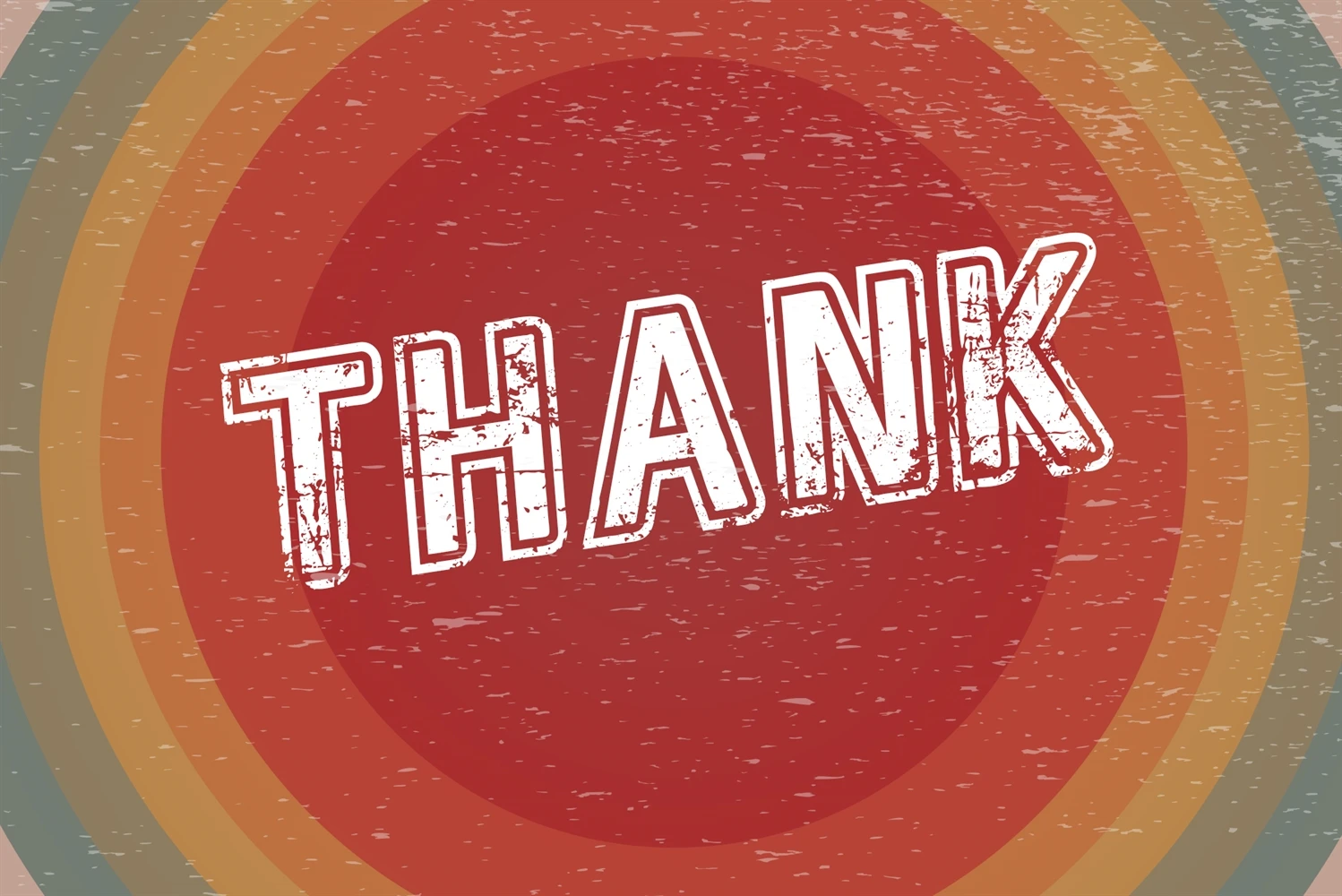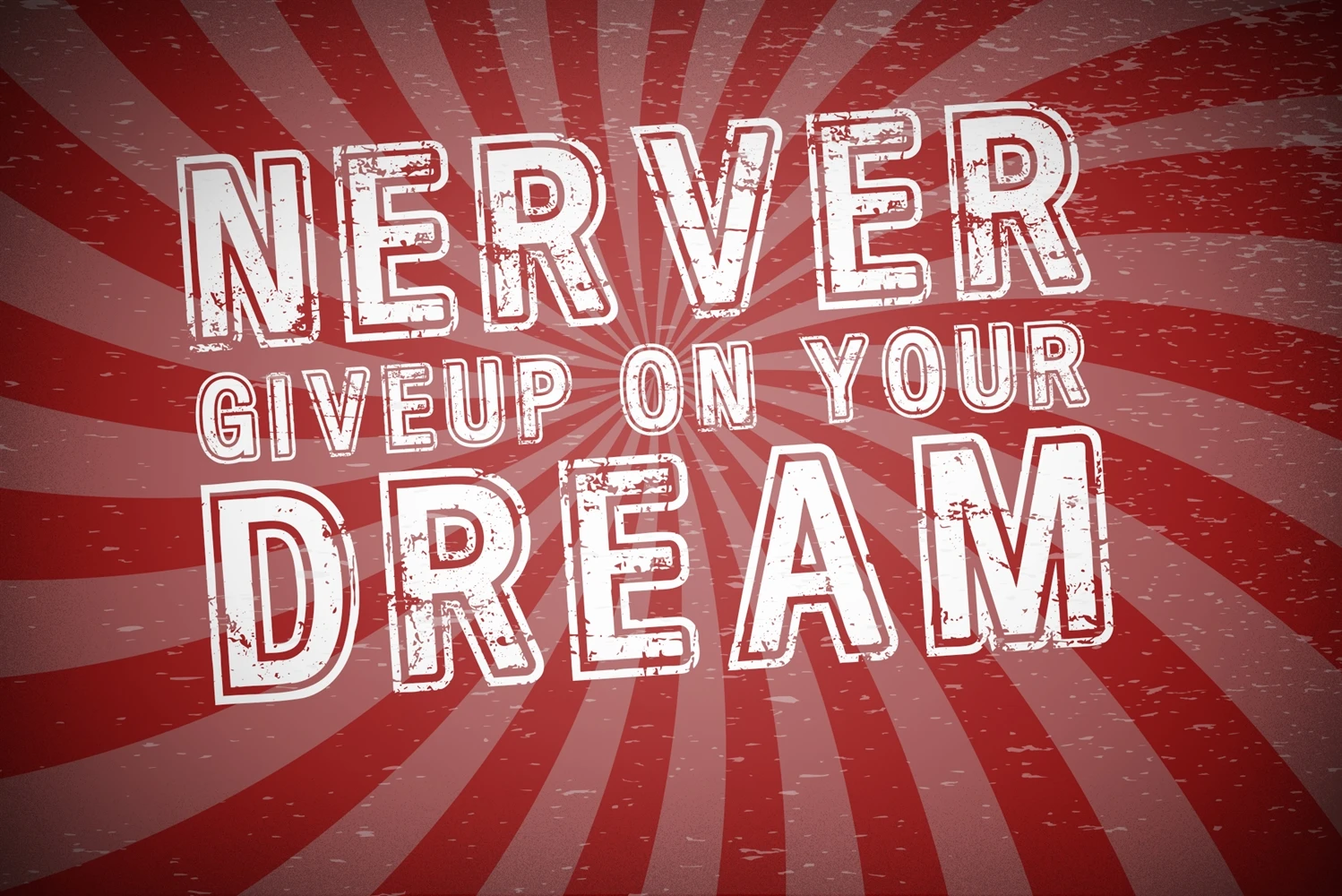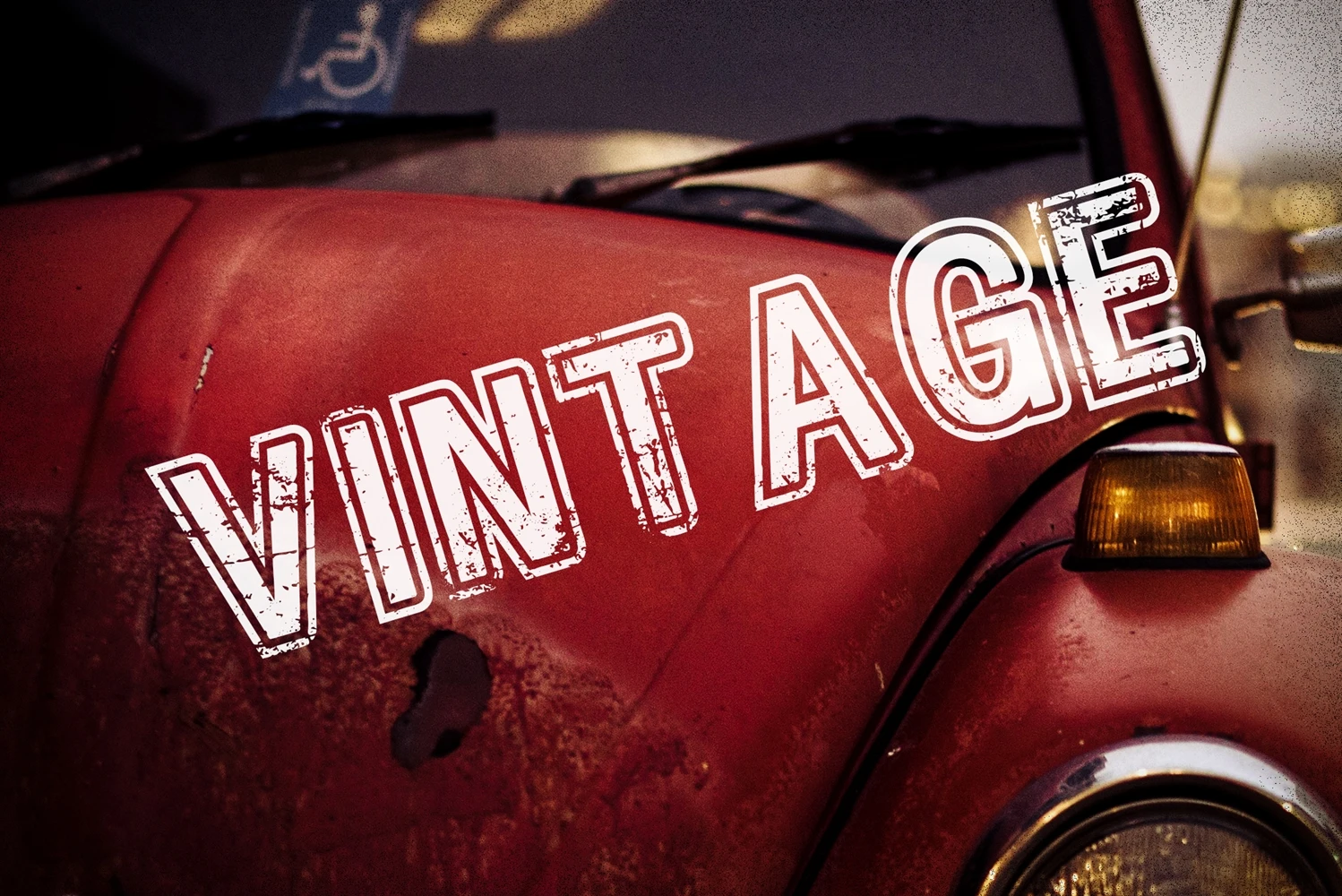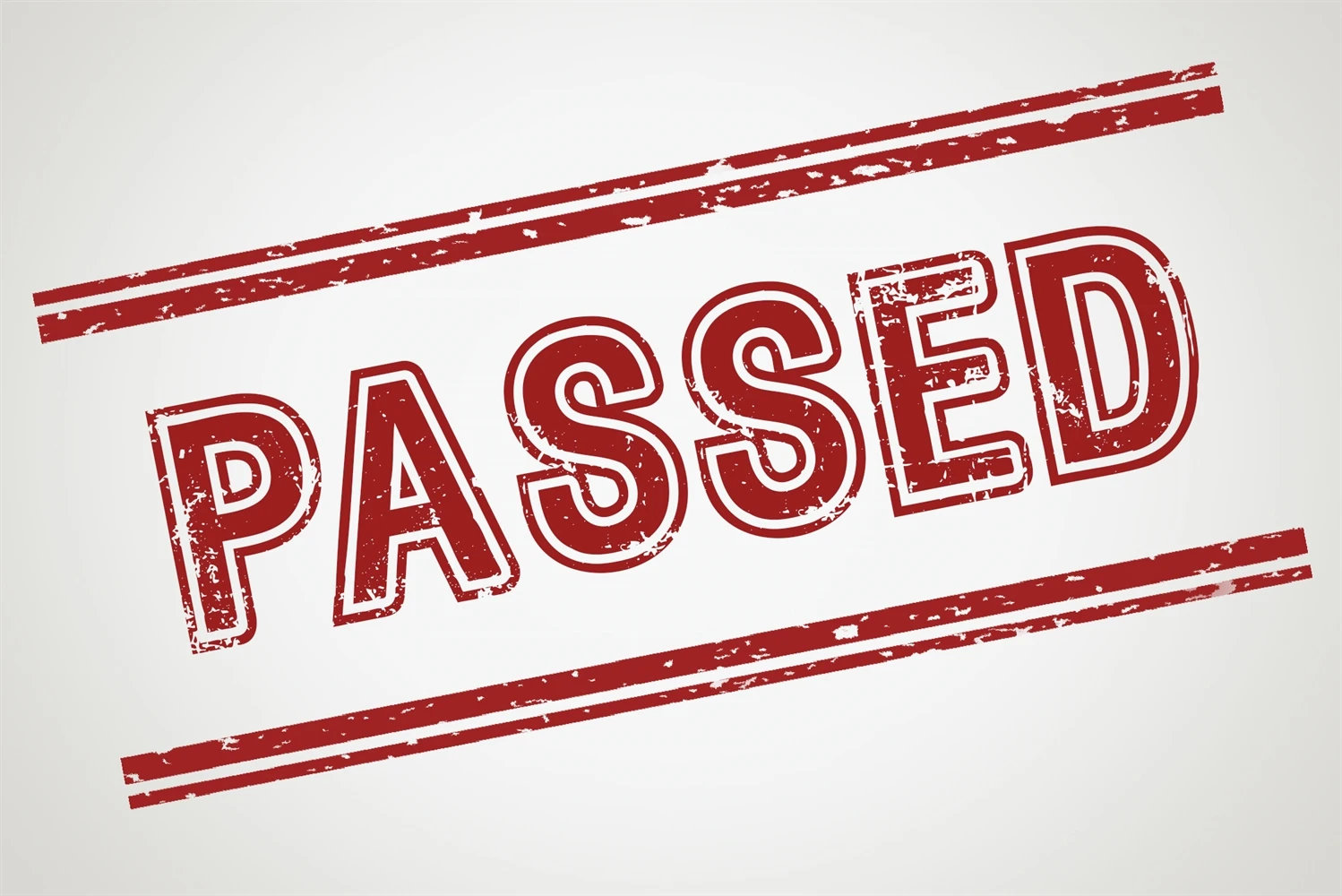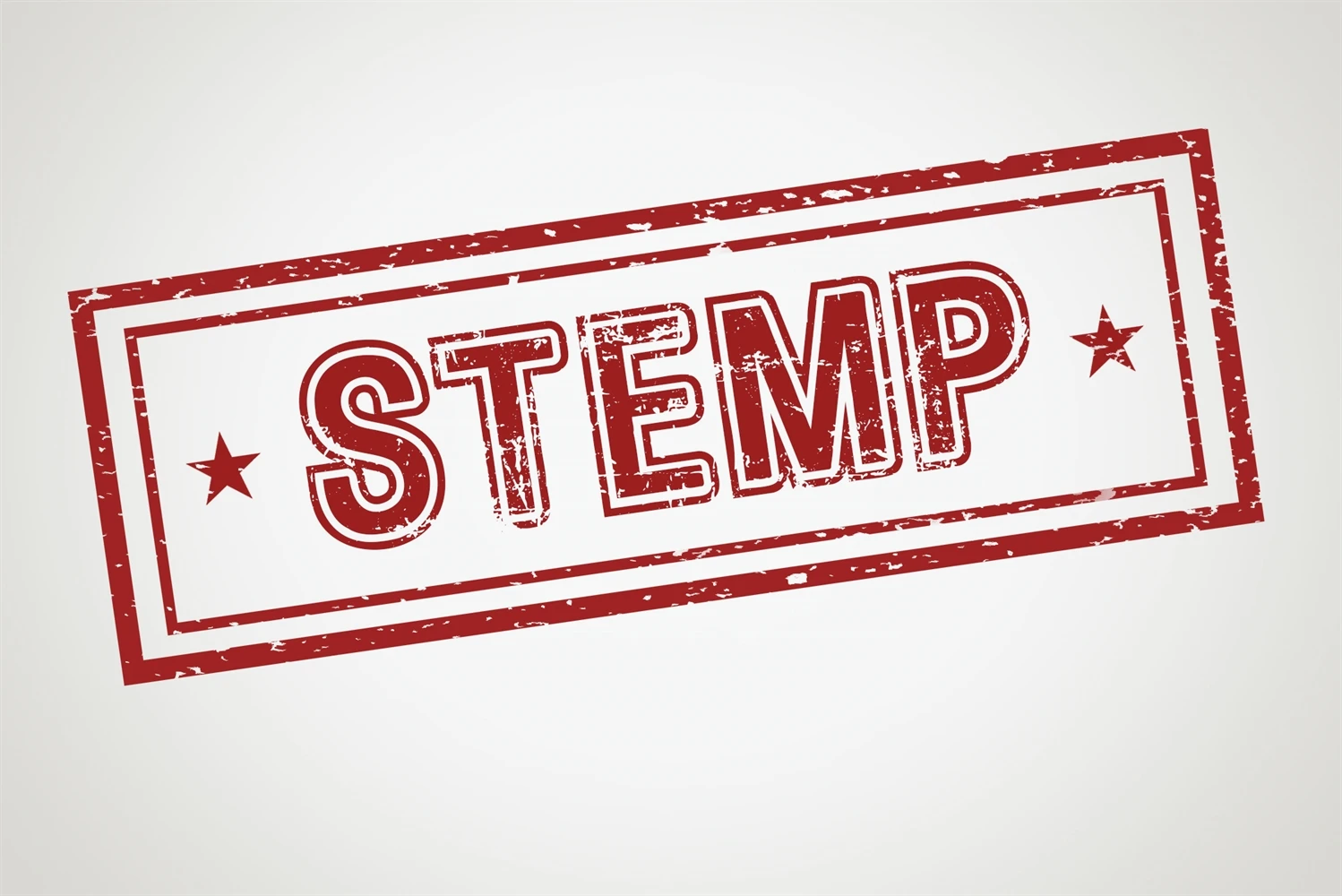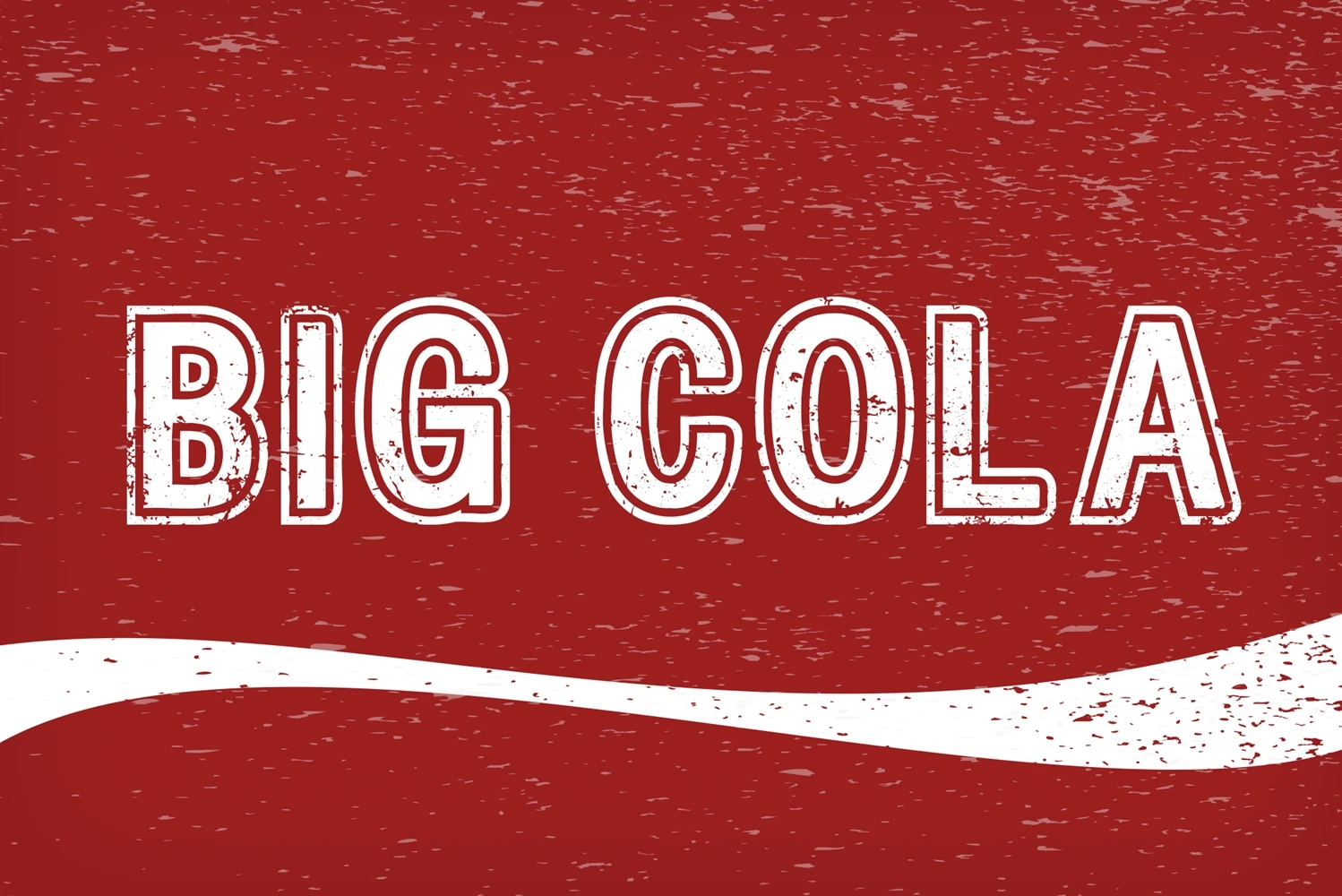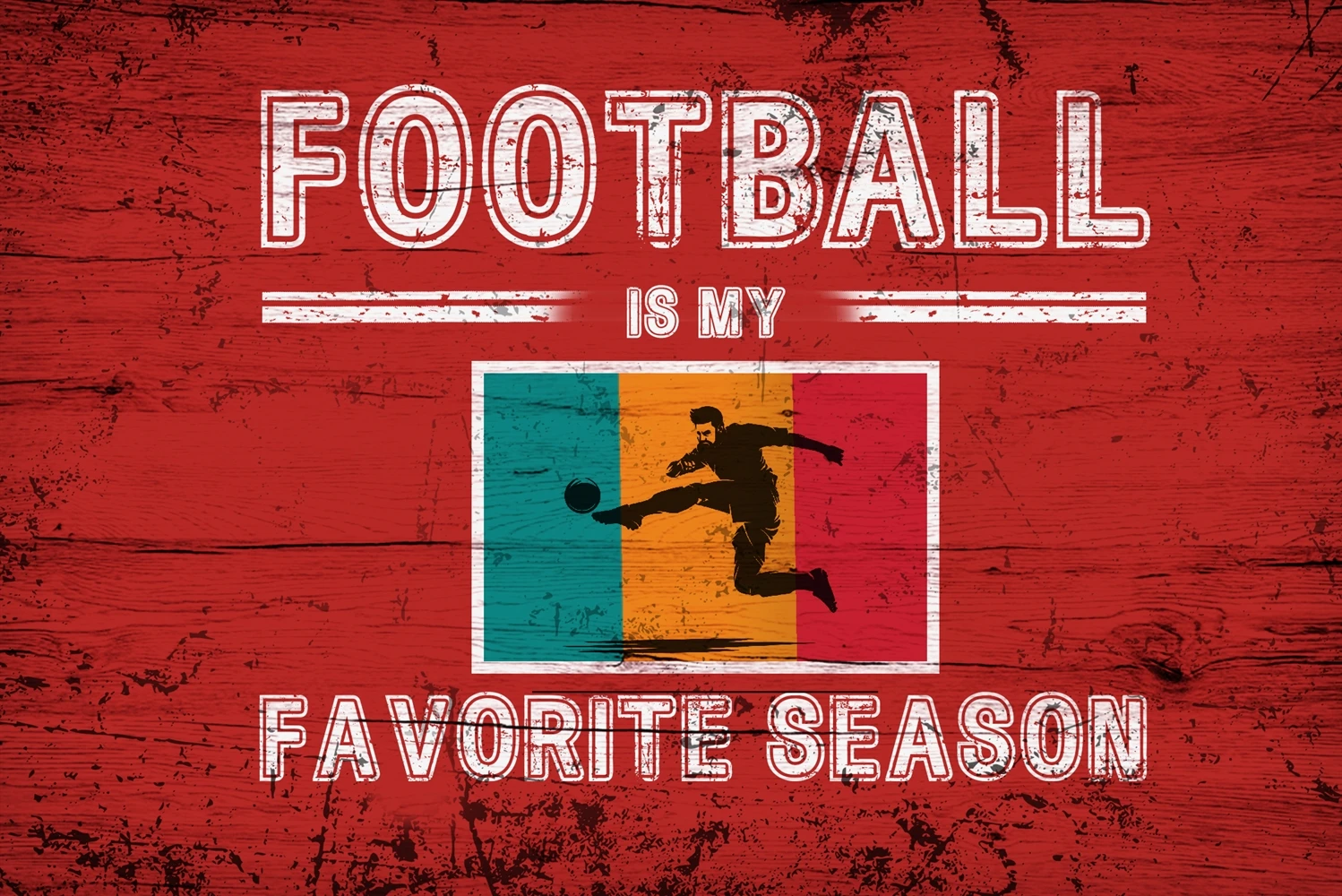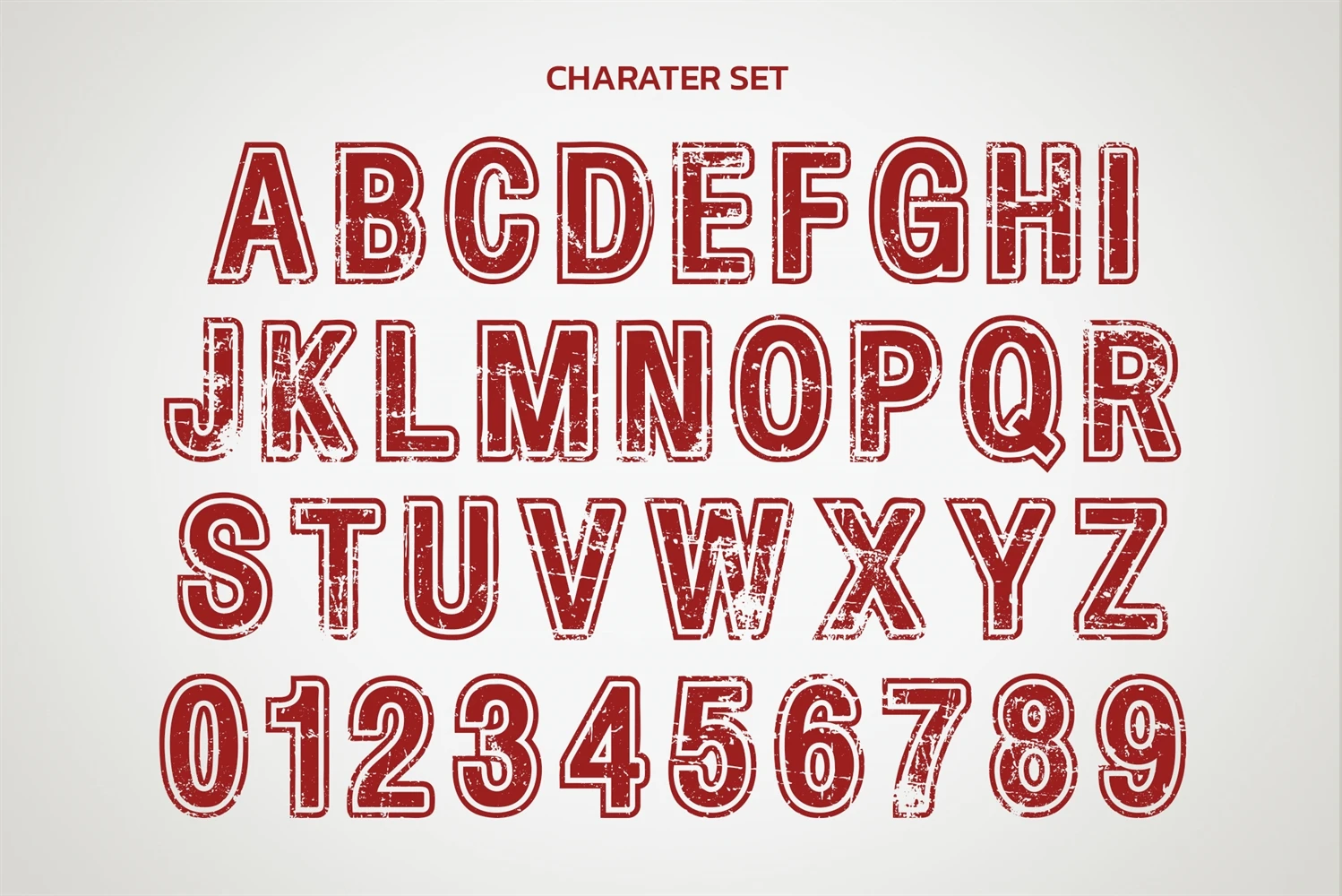
Retro is a vintage and grunge-distressed display font that will brighten up each of your designs. Add it confidently to your projects, and you will love the results.
Scratchones